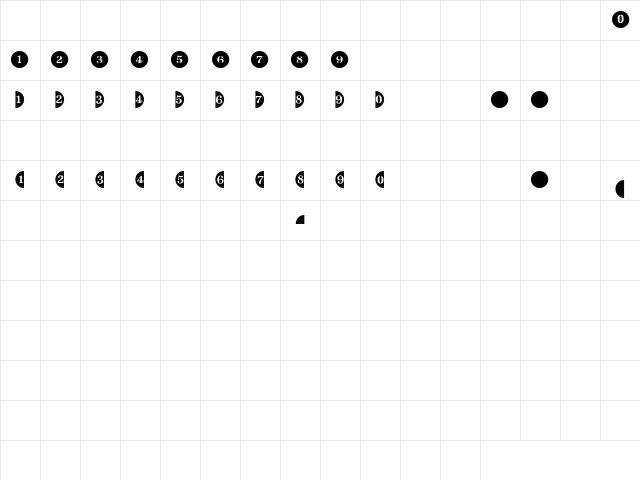
JournalDingbatsFourSSi Regular
JournalDingbatsFourSSi takes a measured approach to typography — its balanced proportions and neutral character make it a reliable workhorse for both digital and print work.